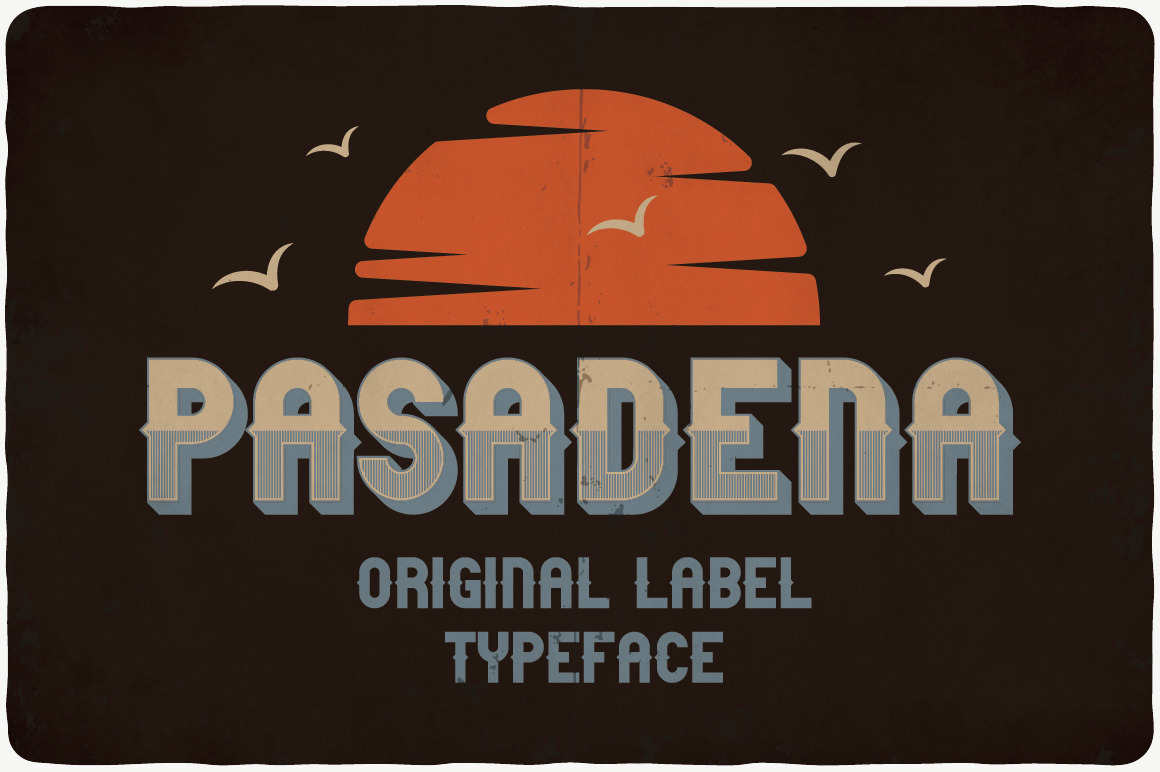
Pasadena typeface
Introducing a vintage look label typeface named "Pasadena". This typeface includes four styles, for sample look at 5th preview. Typeface will good viewed on any yours design.